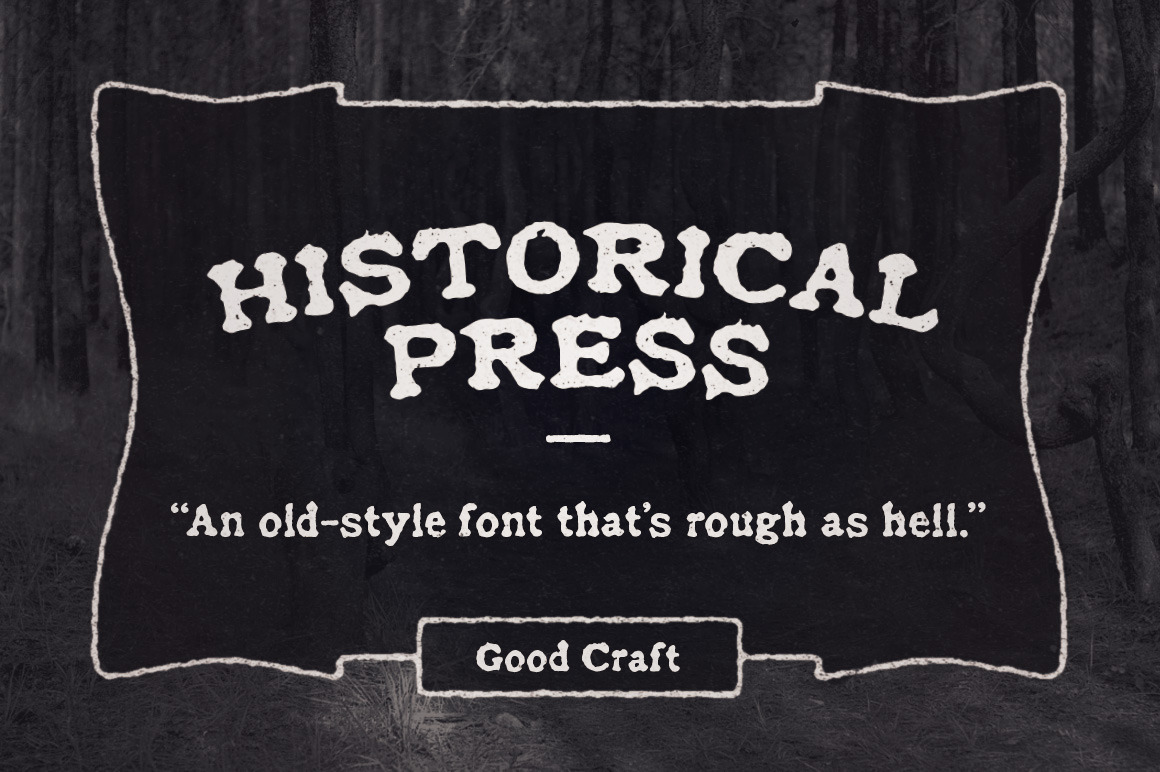
Historical Press font
Historical Press was created from scans of original letterpress type that show years of heavy use. The characters were designed to simulate over-inking, which adds to the overall authenticity of the font. This font would be a great companion for label design and branding use!
- Authentic period font
- Includes upper and lower case characters
- Old-style numbers